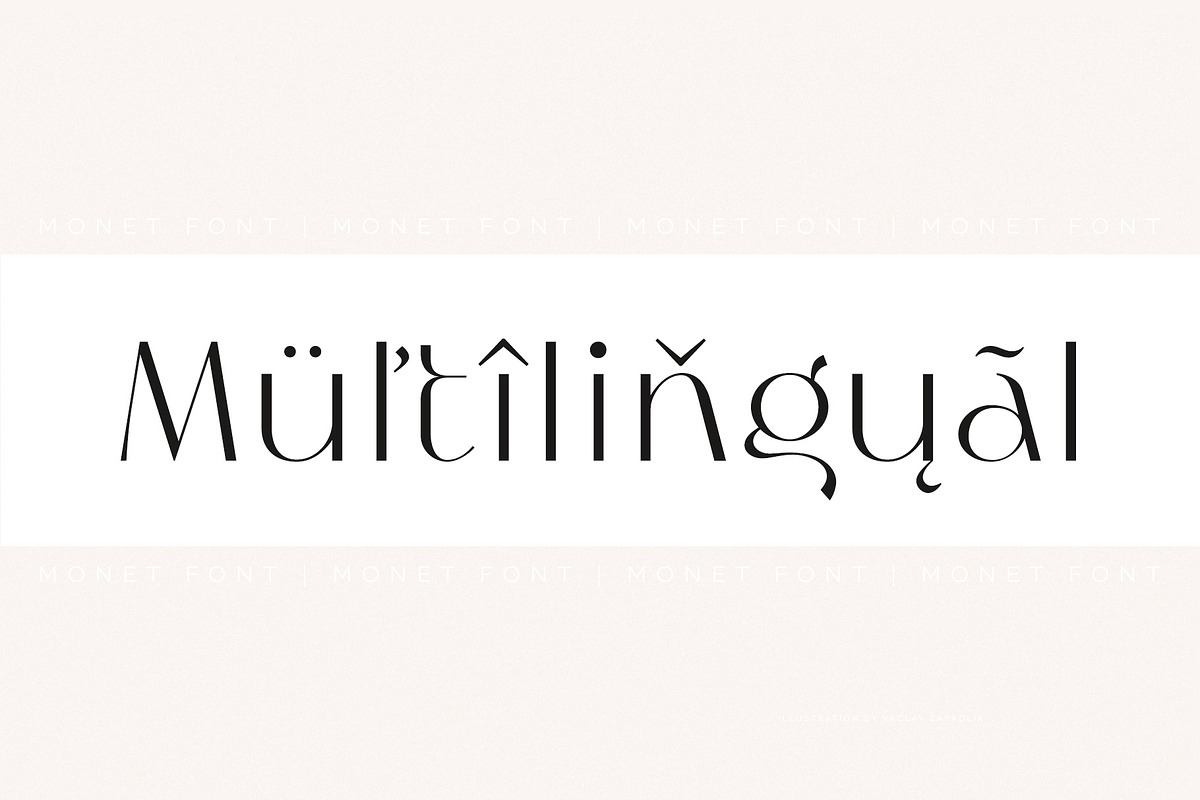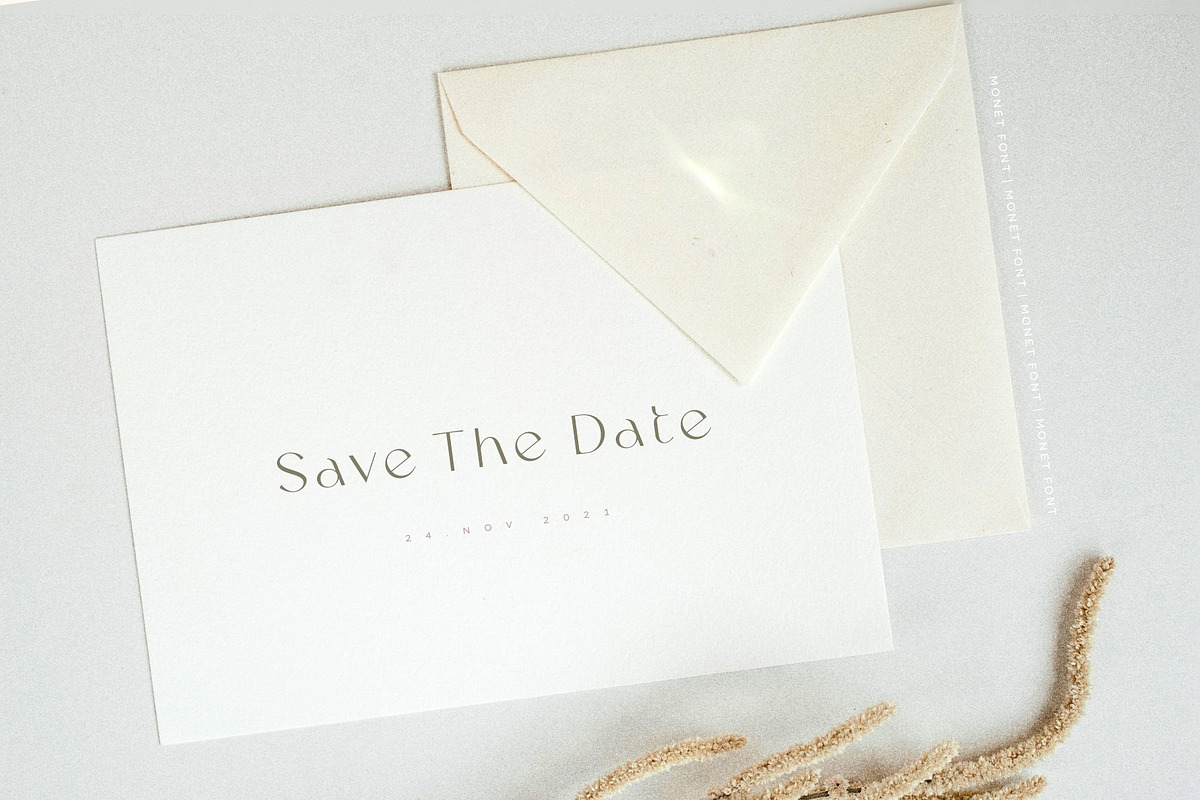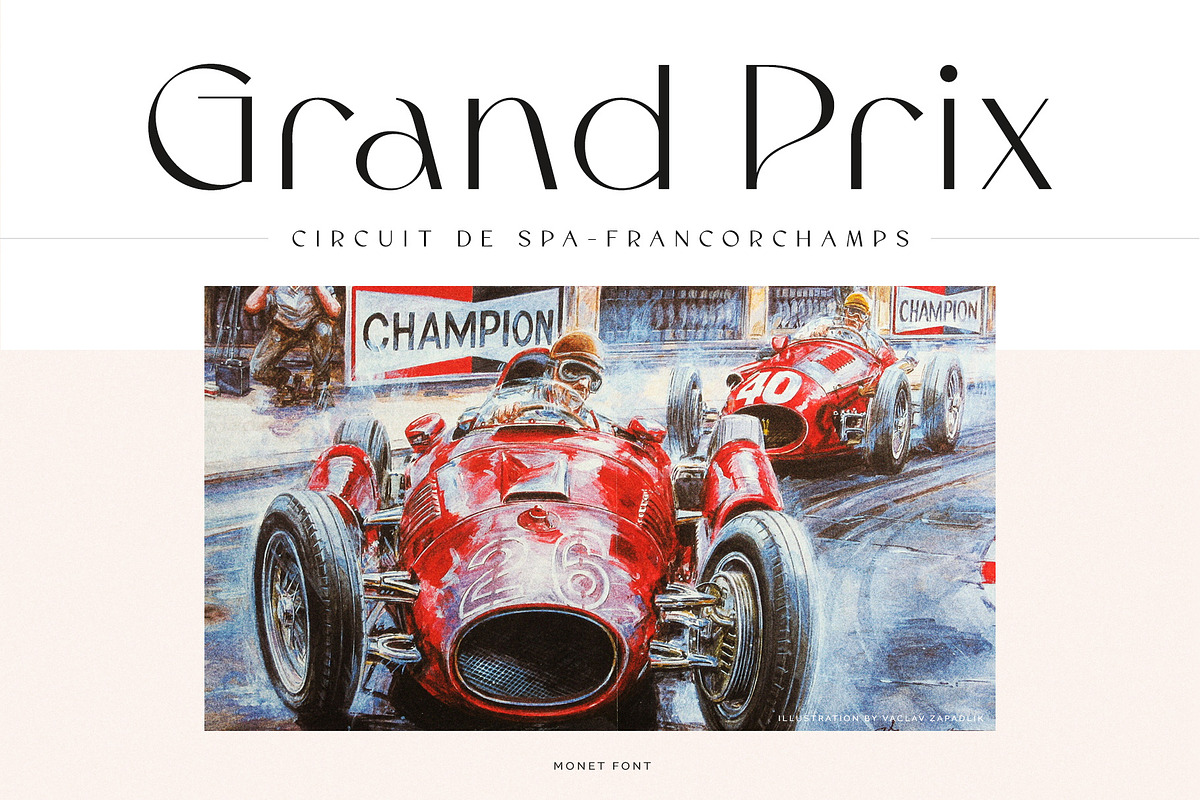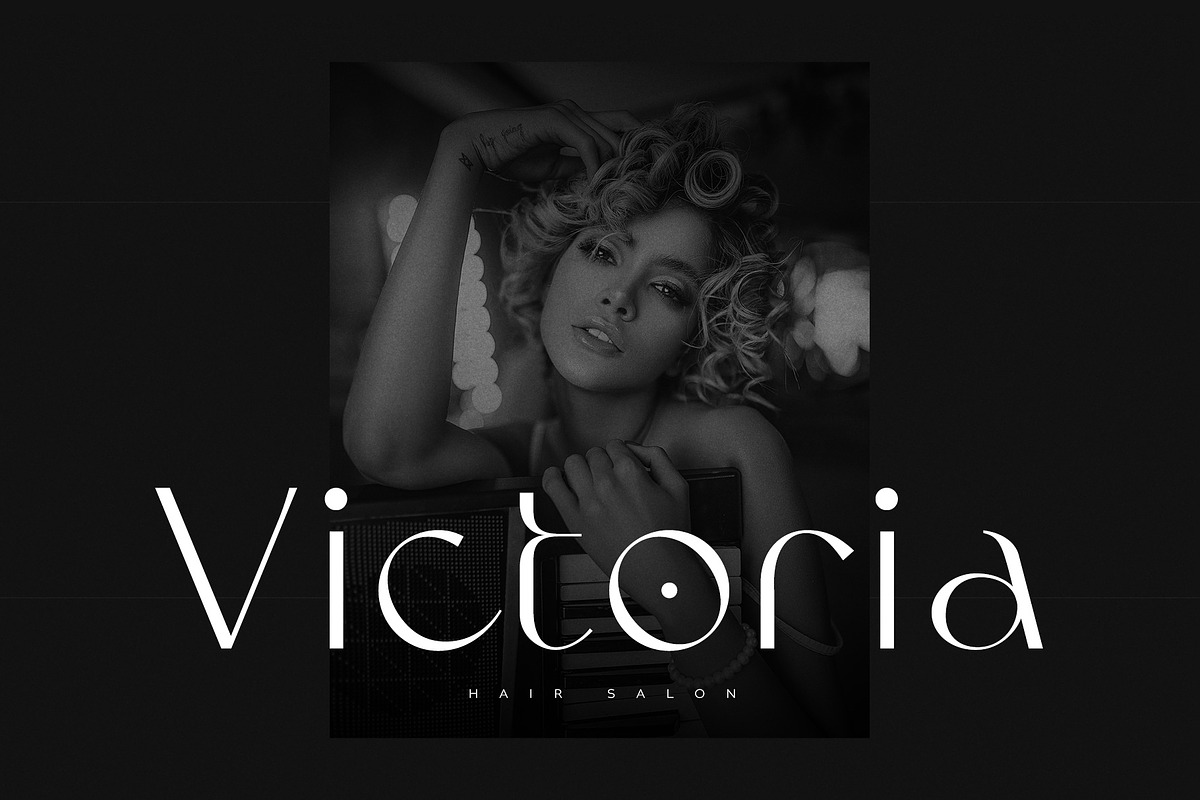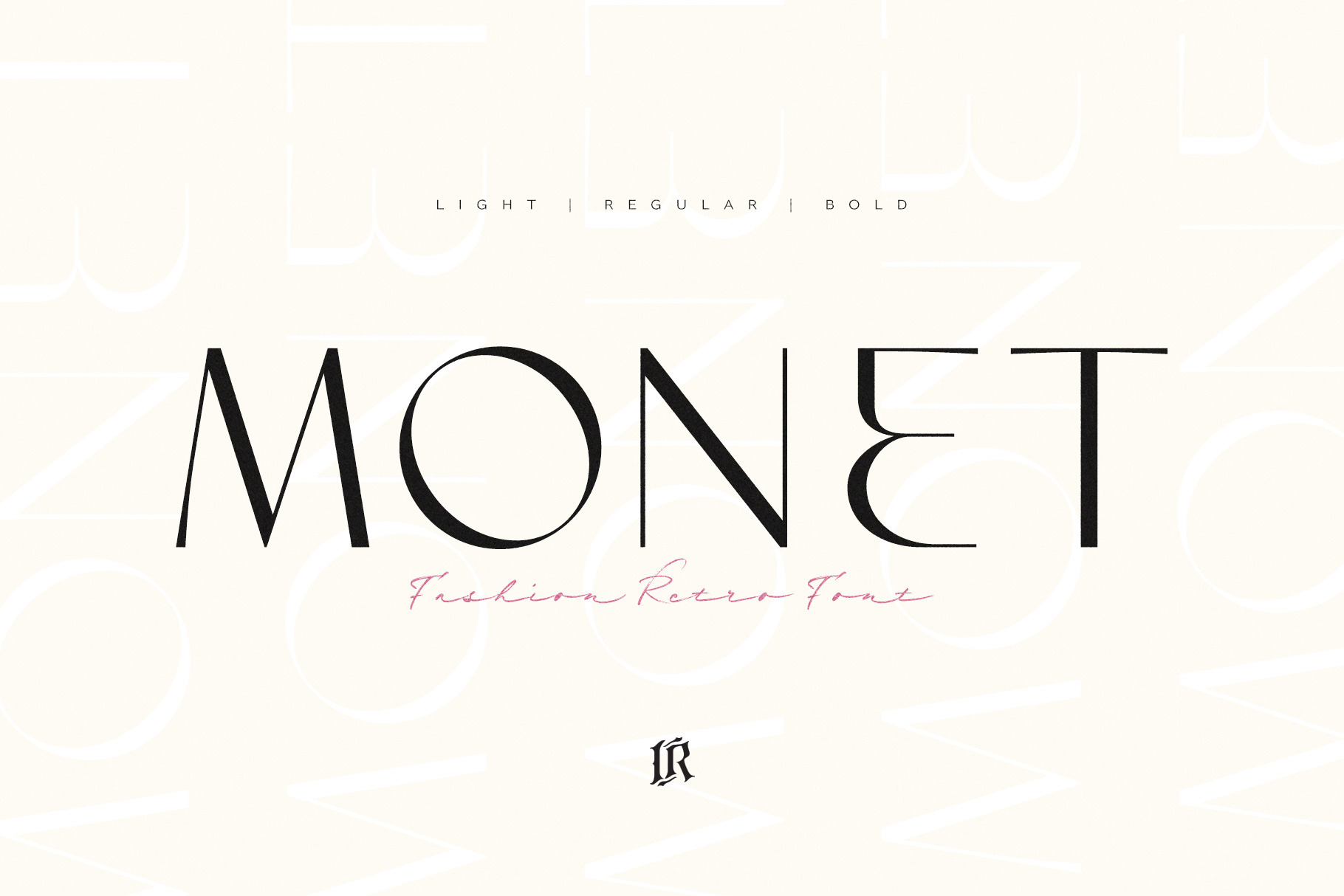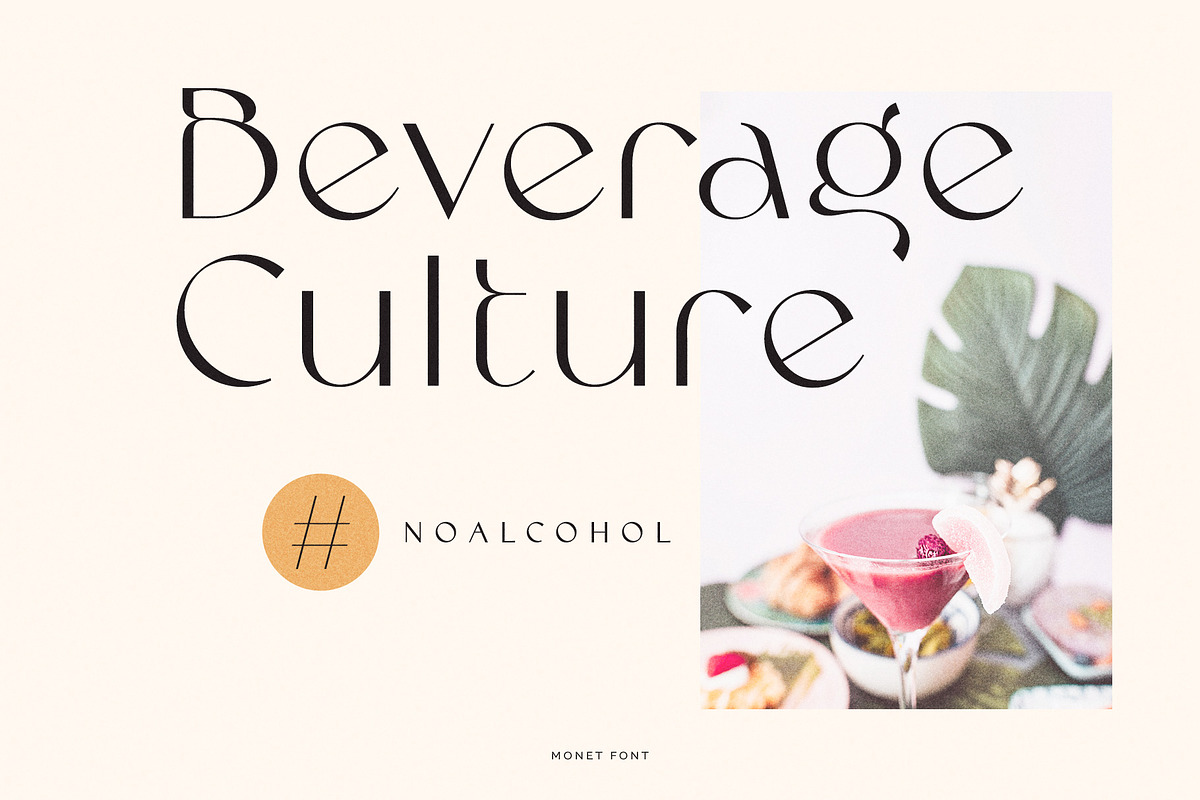
Monet - Vintage Font
MONET is a stylish font inspired by vintage fashion posters with a touch of modernity. There are three weights of this font : LIGHT, REGULAR and BOLD.
Monet Font is made mainly for headlines, titles, and other short texts and is well-suited for advertising, vintage mood board, branding, logotypes, packaging, titles, editorial design and modern and vintage design.